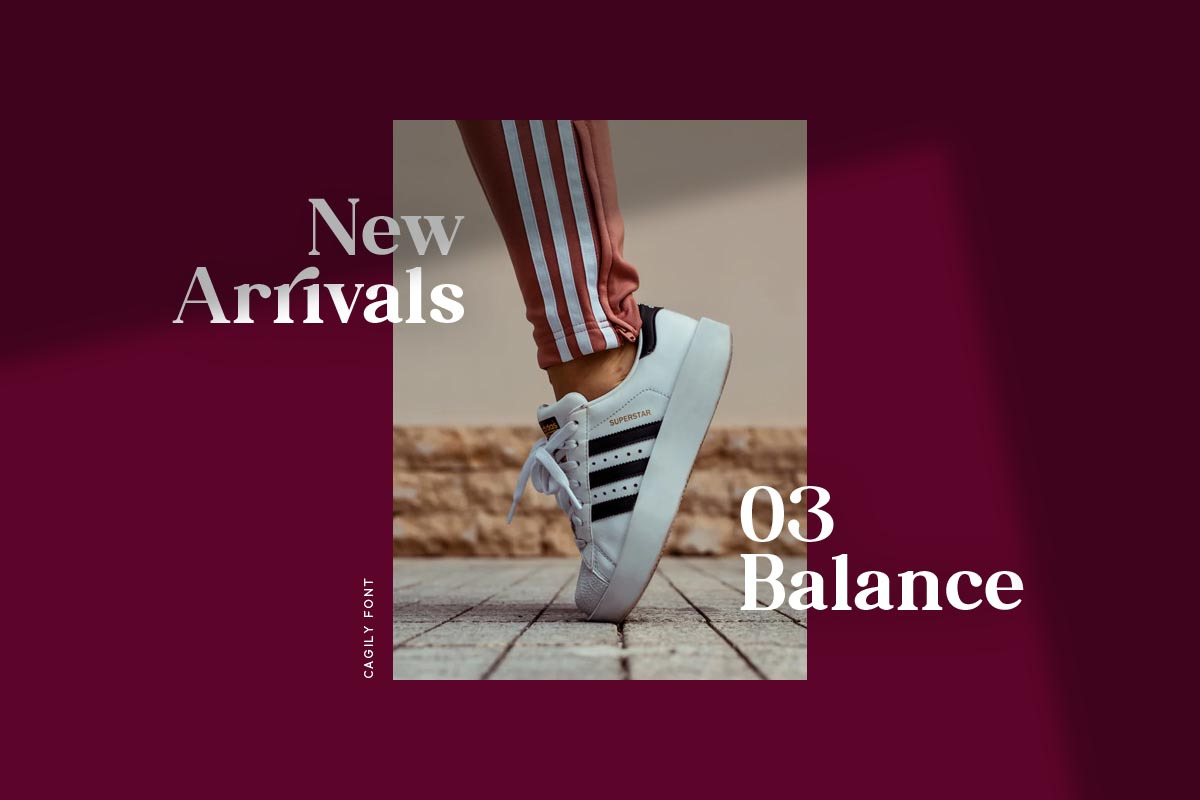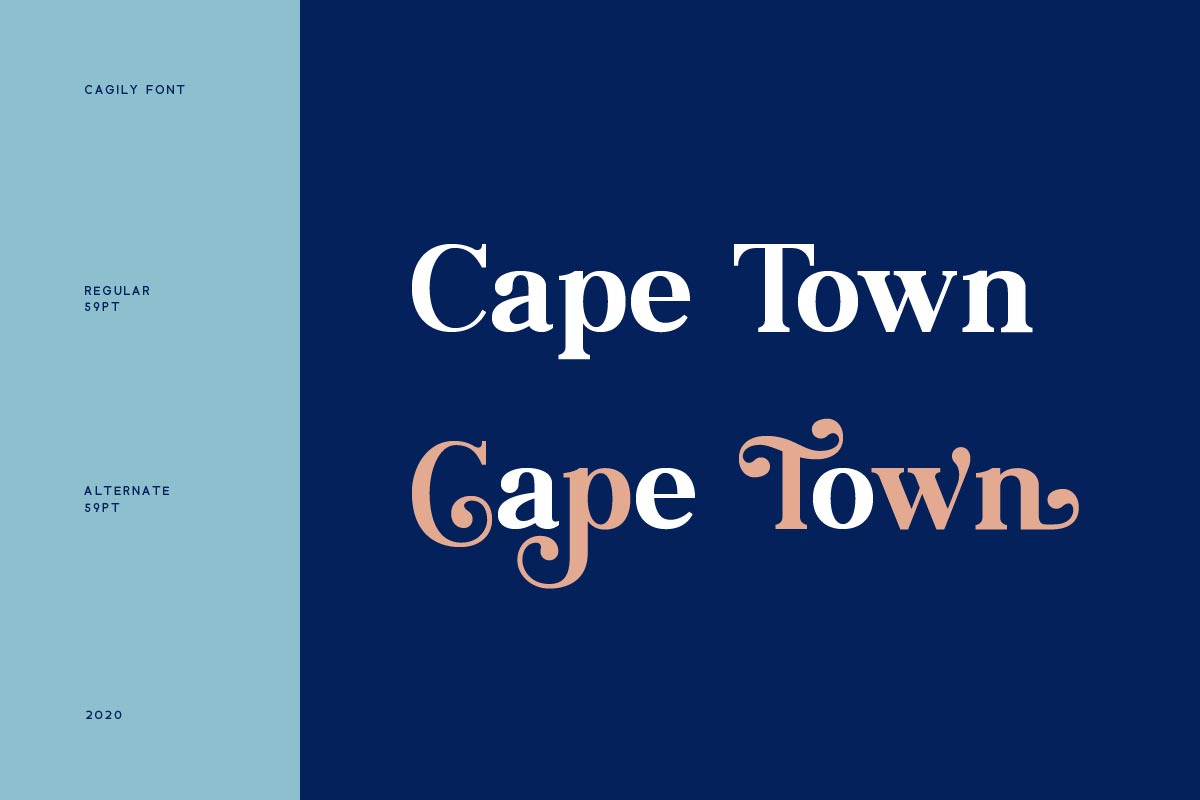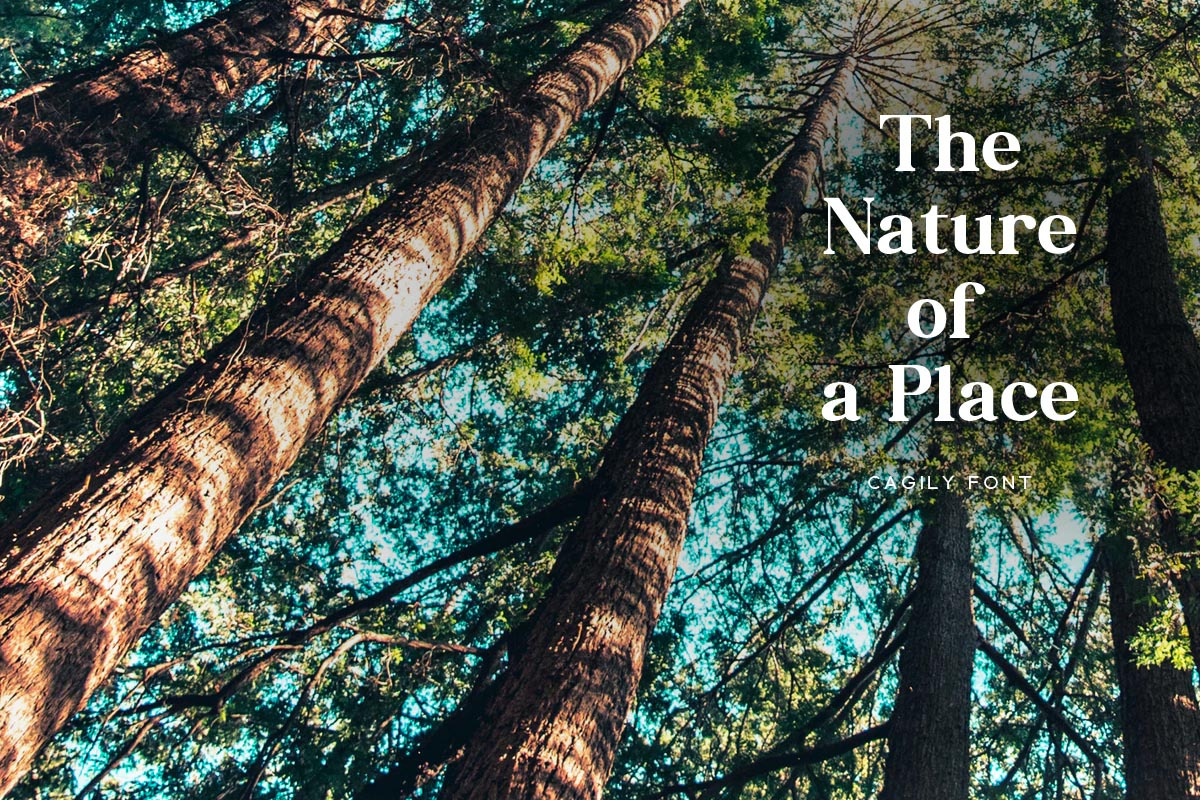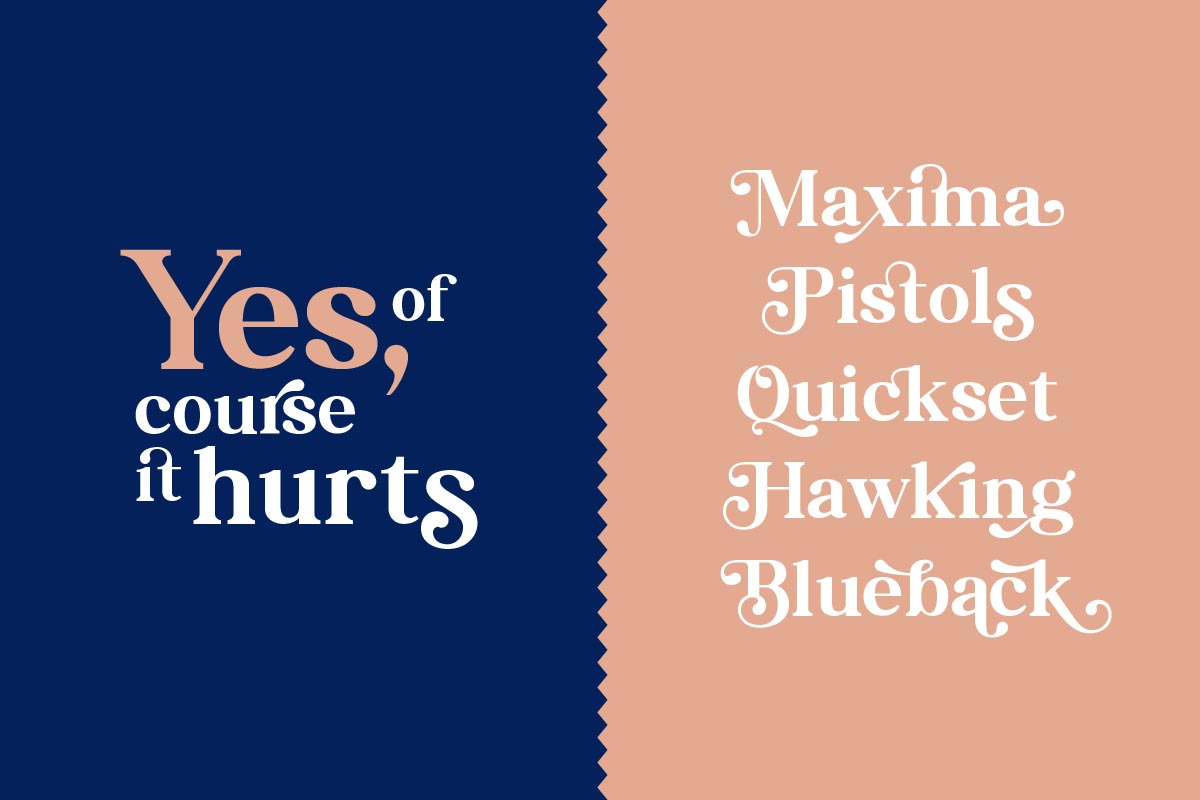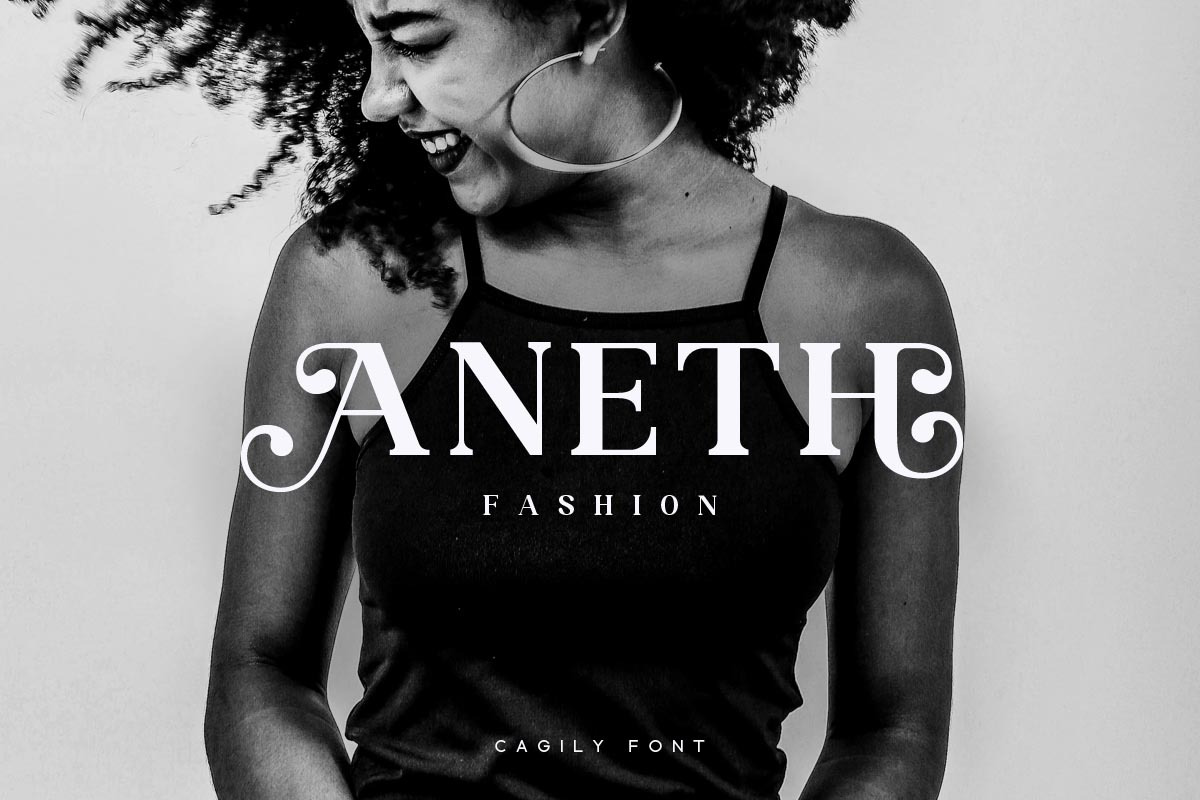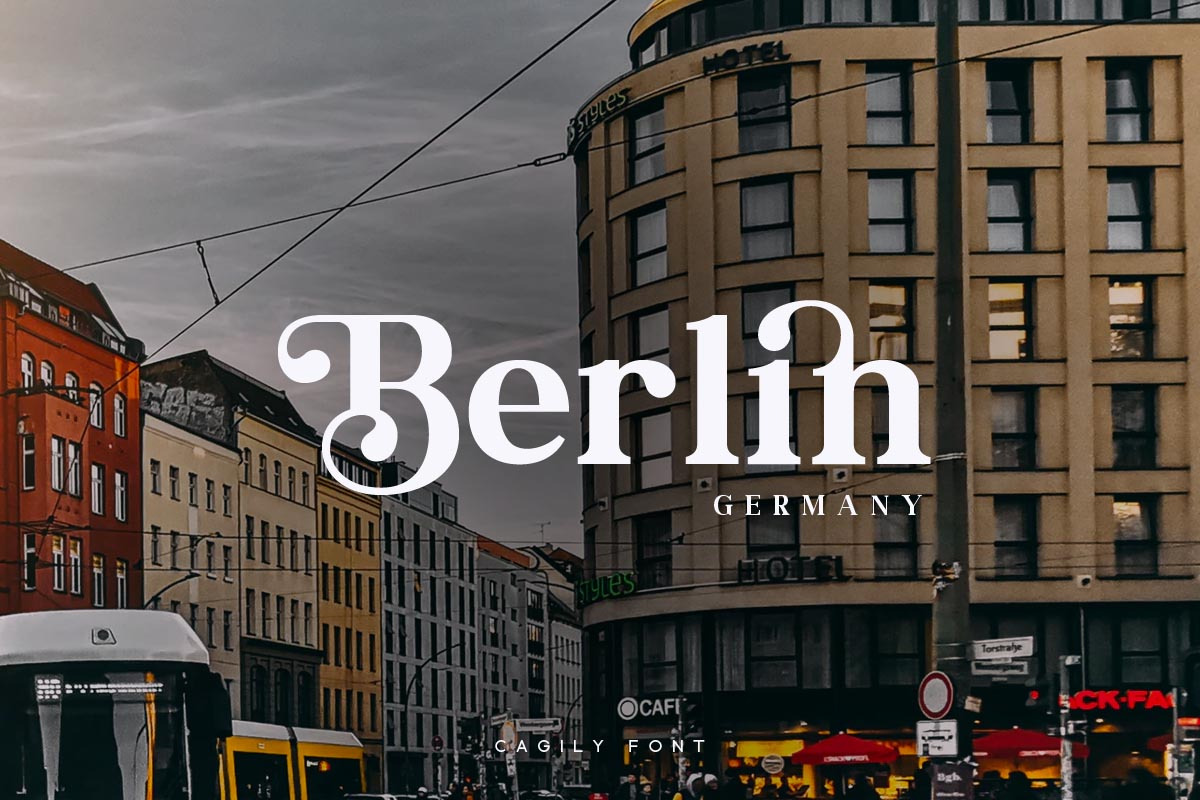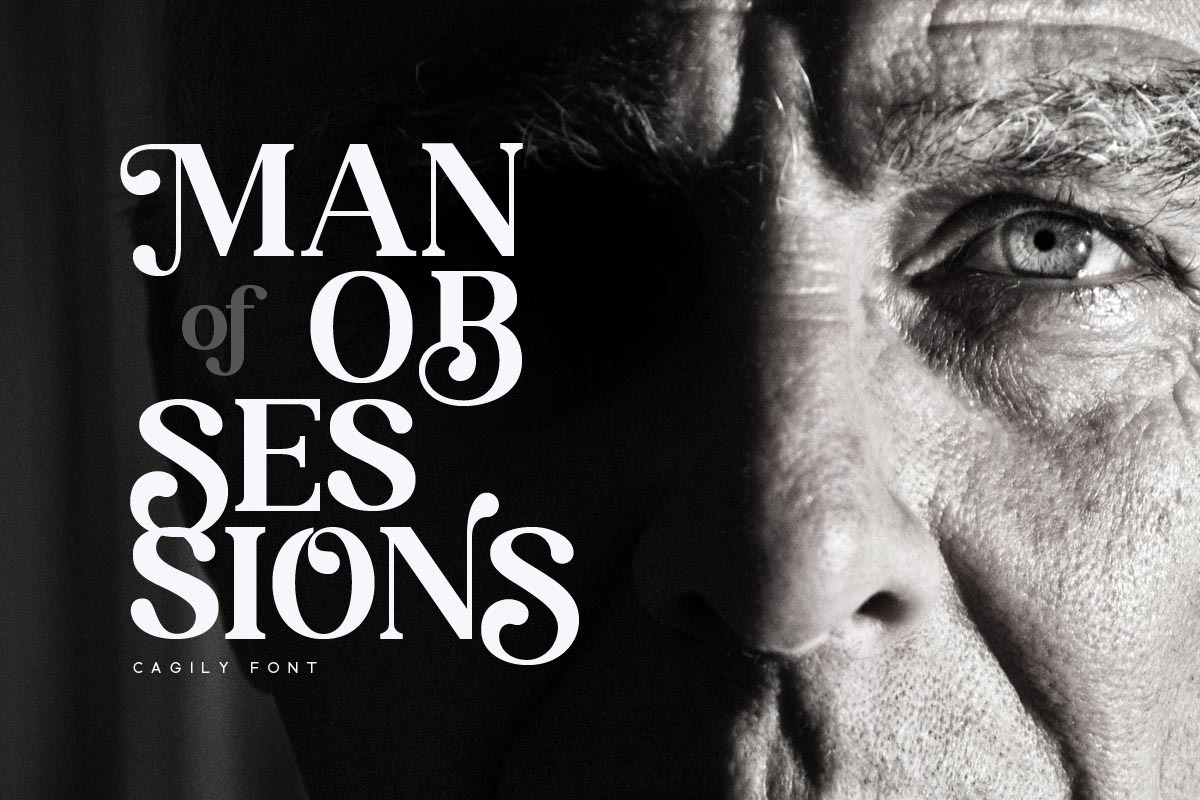
Cagily Font
Cagily is modern serif font, every single letters have been carefully crafted to make your text looks beautiful.
Foreign languages support: ÀÁÂÃÄÅÆÇÈÉÊËÌÍÎÏÐÑÒÓÔÕÖØÙÚÛÜÝßàáâãäåæçèéêëìíîïðñòóôõöøùúûüýÿ
Cagily Font by vuuuds fits naturally into Branding, posters, packaging, typography.